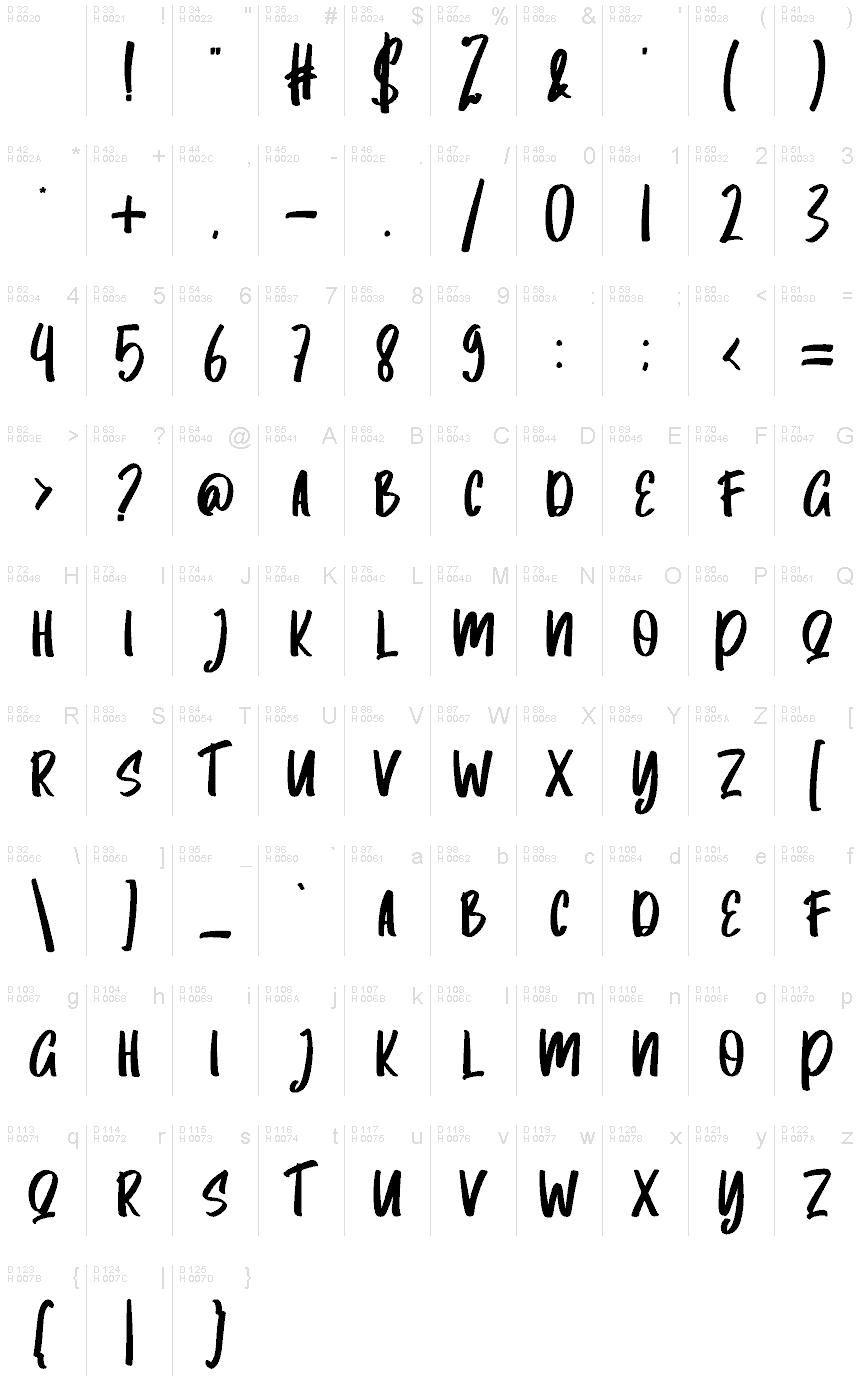
Tusrya
Tusrya font, designed by Skiiller Studio, is a free brush font with a condensed width. Its modern, casual design has an energetic and expressive hand-lettered appearance that brings a powerful artistic vibe to the table. The condensed style clearly stands out with its unique look whether for headlines or large display typography.
Enjoy Tusrya in packaging designs, branding projects, wall art posters, handwritten quotes, merchandise designs, CD covers and book cover titles. Use also in advertisements both prints and digital as well as for social media ideas such as profile covers or posts/ stories text!